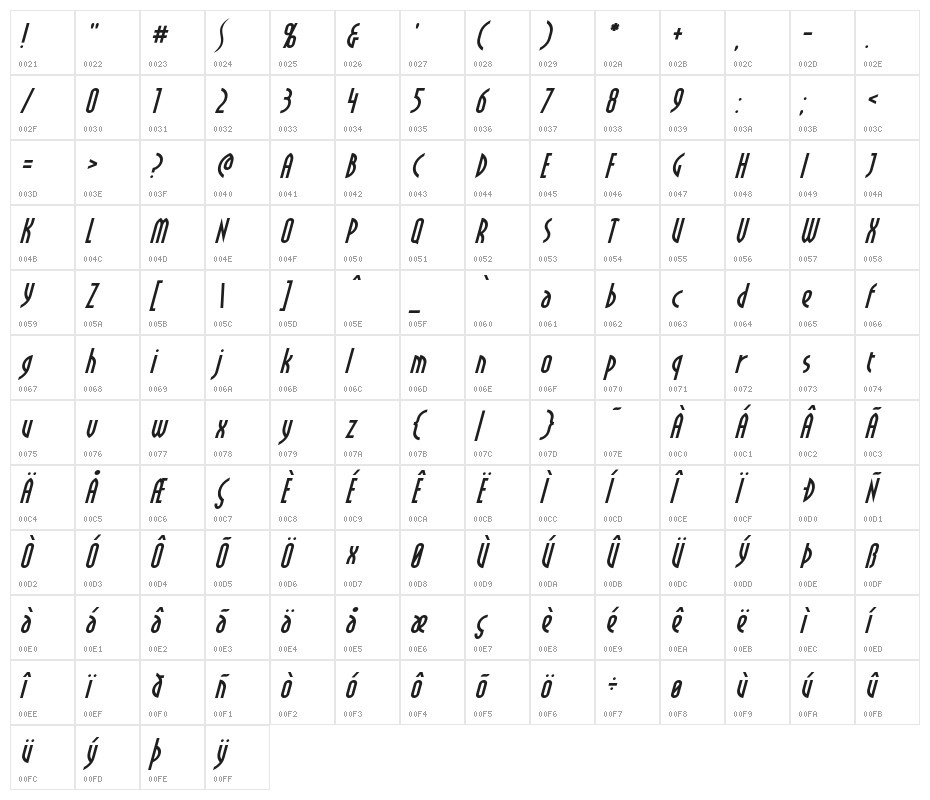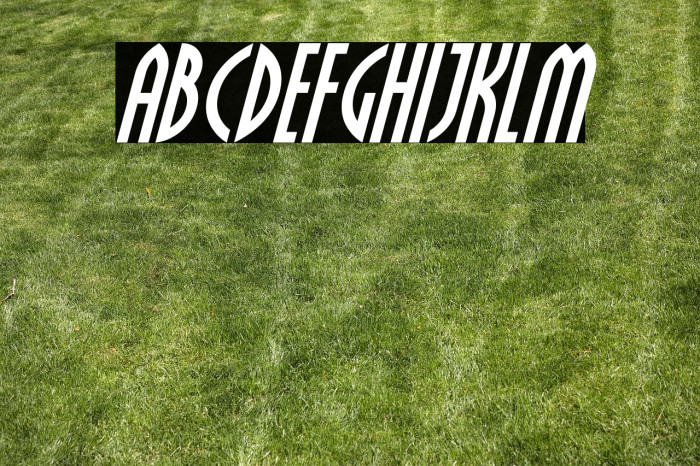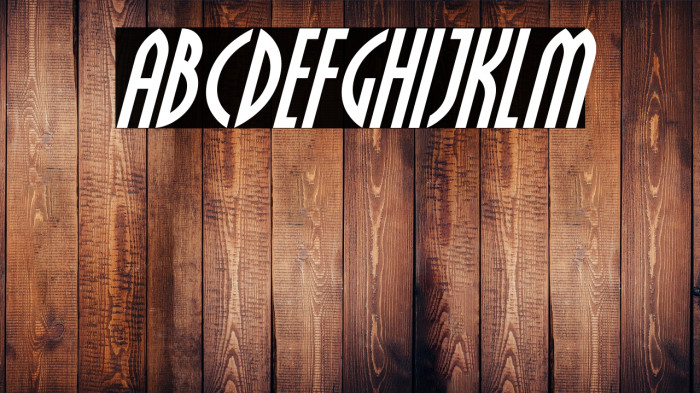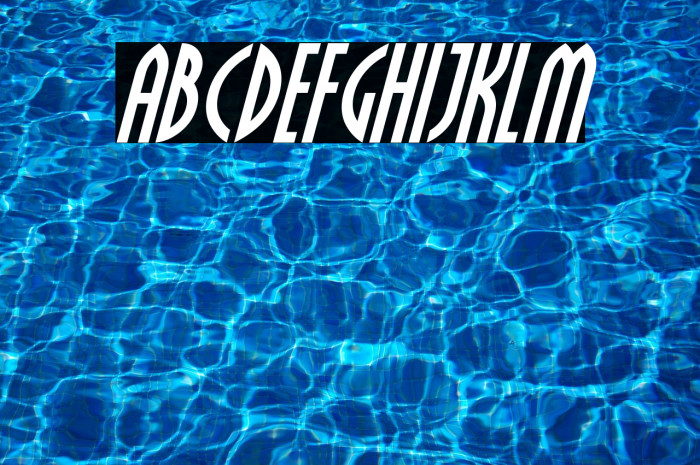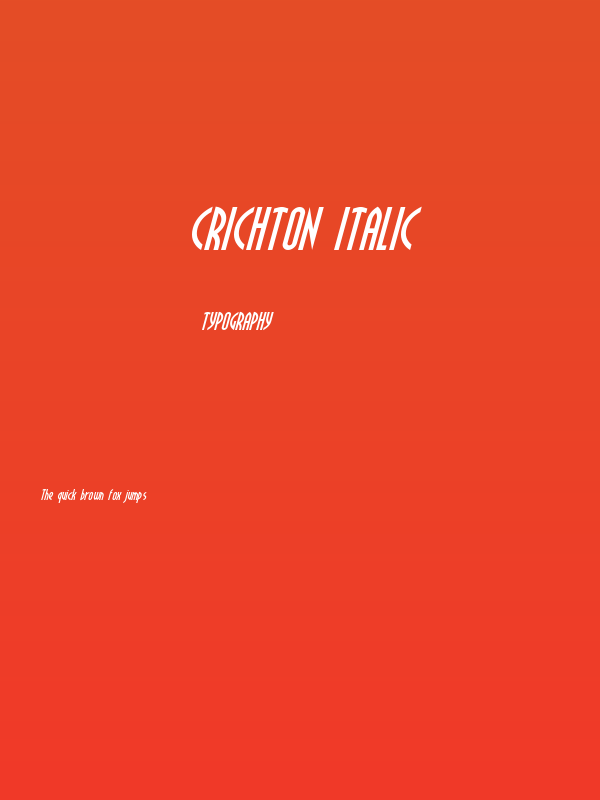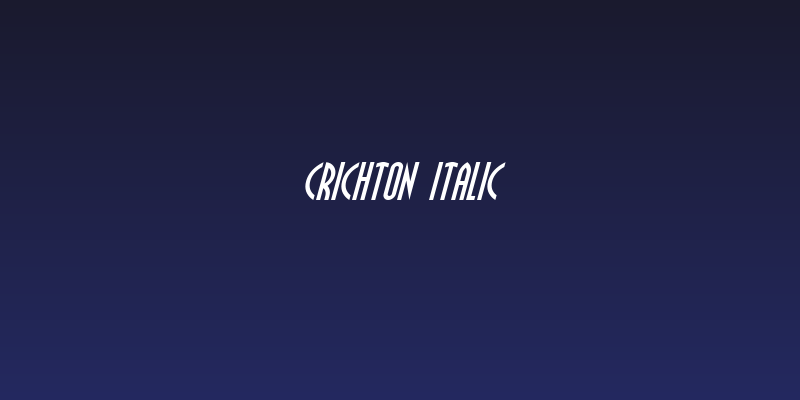
Crichton Italic Font
Crichton Italic Description
This font features a dynamic and modern italic style with sharp, angular edges and a forward-leaning posture. The characters are elongated with a consistent slant, giving a sense of motion and speed. The uppercase letters are bold and commanding, while the lowercase letters maintain the same angular style, ensuring uniformity across the typeface. Numbers and special characters follow the same design principles, making them easily integrated into various design projects. The overall appearance is sleek and contemporary, suitable for making a bold statement.
| Overall Style | Modern, Dynamic |
| Proposed Projects | Ideal for branding, advertising, and editorial design where a modern and energetic feel is desired. |